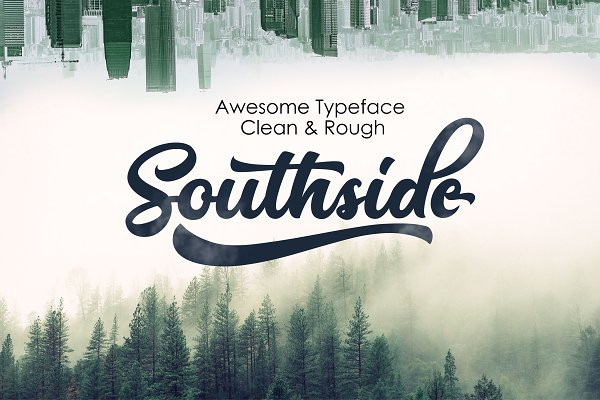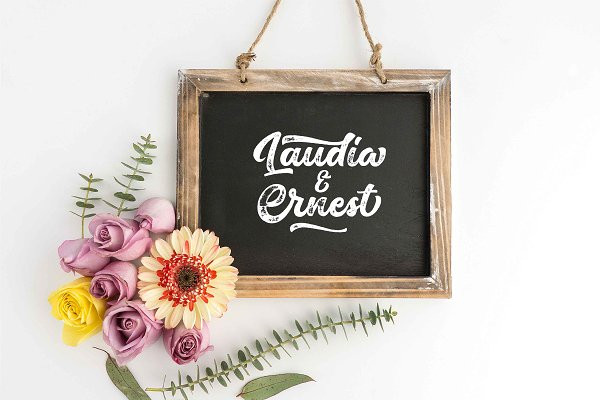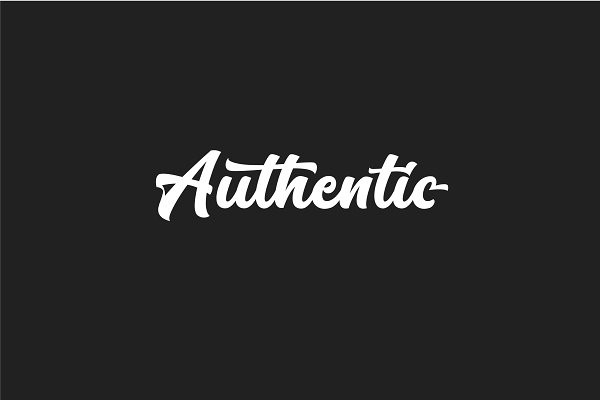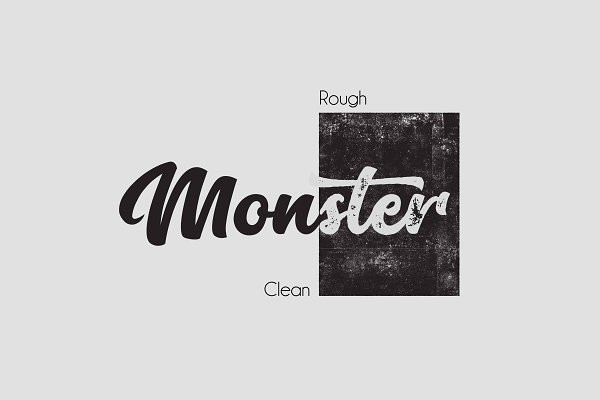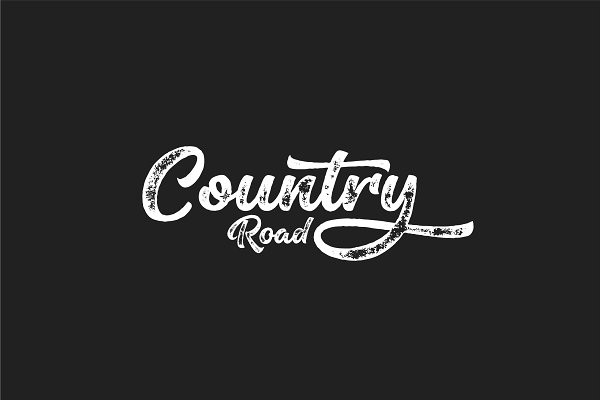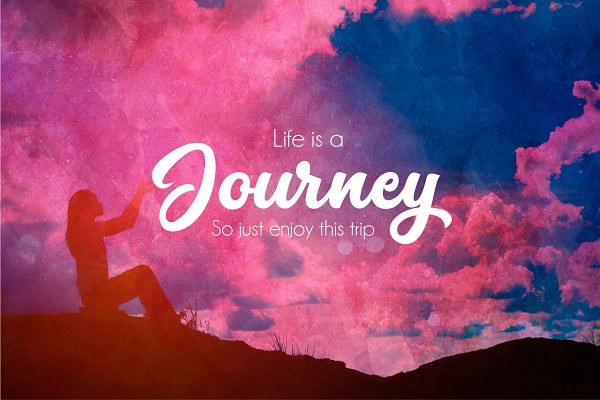
SOUTHSIDE Typeface
"INTRODUCING"
SOUTHSIDE TYPEFACE Clean & Rough
Southside Typeface is a beautiful Font Script Typeface , with a Clean and Rough Style. This script will look gorgeous on all your designs, wedding invites, branding materials, logo's, t-shirt, poster, business cards, quotes and all project design other.
WHAT'S INCLUDED Southside Typeface contains standard characters, lowercase, uppercase, numbers, punctuation, ligatures and international characters. This font also comes with sets of alternates lowercase characters (Clean and Rough). You will receive the OTF and TTF files.